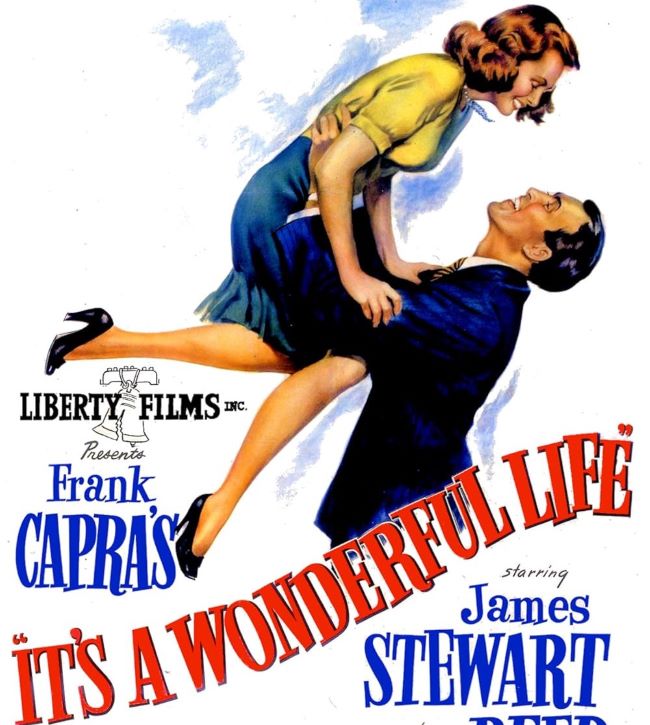
It’s a Wonderful Life Font radiates timeless optimism and heartfelt emotion through carefully crafted letterforms. This typography embodies the spirit of classic American cinema, offering designers an authentic way to infuse projects with vintage warmth and genuine sentimentality that resonates across generations.
The movie’s title lettering features a bold serif style with a touch of flourish, evoking a sense of tradition and storytelling. Designers often use the It’s a Wonderful Life font when creating posters, greeting cards, or personal projects that aim to capture the film’s heartwarming and uplifting spirit.
It’s a Wonderful Life Font
It’s a Wonderful Life Font shines in Christmas campaigns, family event invitations, retro branding, and inspirational messaging. Its friendly elegance bridges traditional and contemporary aesthetics, making every design feel personal and meaningful while maintaining professional polish throughout various applications.